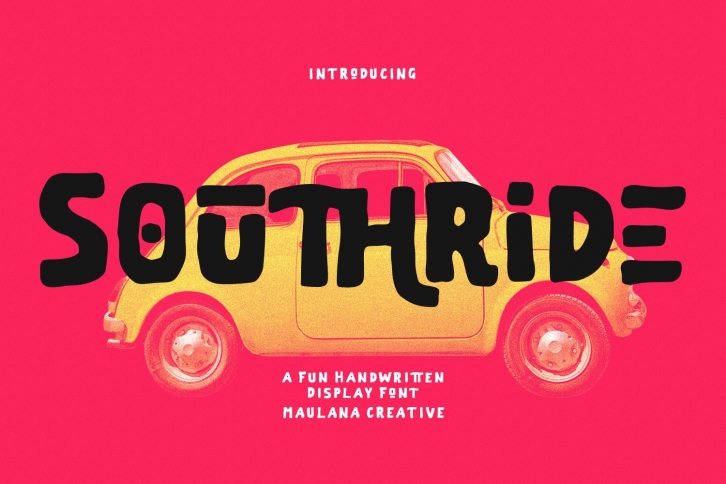
Southride Handwritten is a beautiful font that was designed by Maulana Creative. It's a great choice for designers and creatives who need such a font. It was released on September 6, 2022 and the file size is 7.36 MB. Southride Handwritten may give a more youthful, expressive and casual look to your project. It is a very beautiful, refined, elegant, and high-quality font.